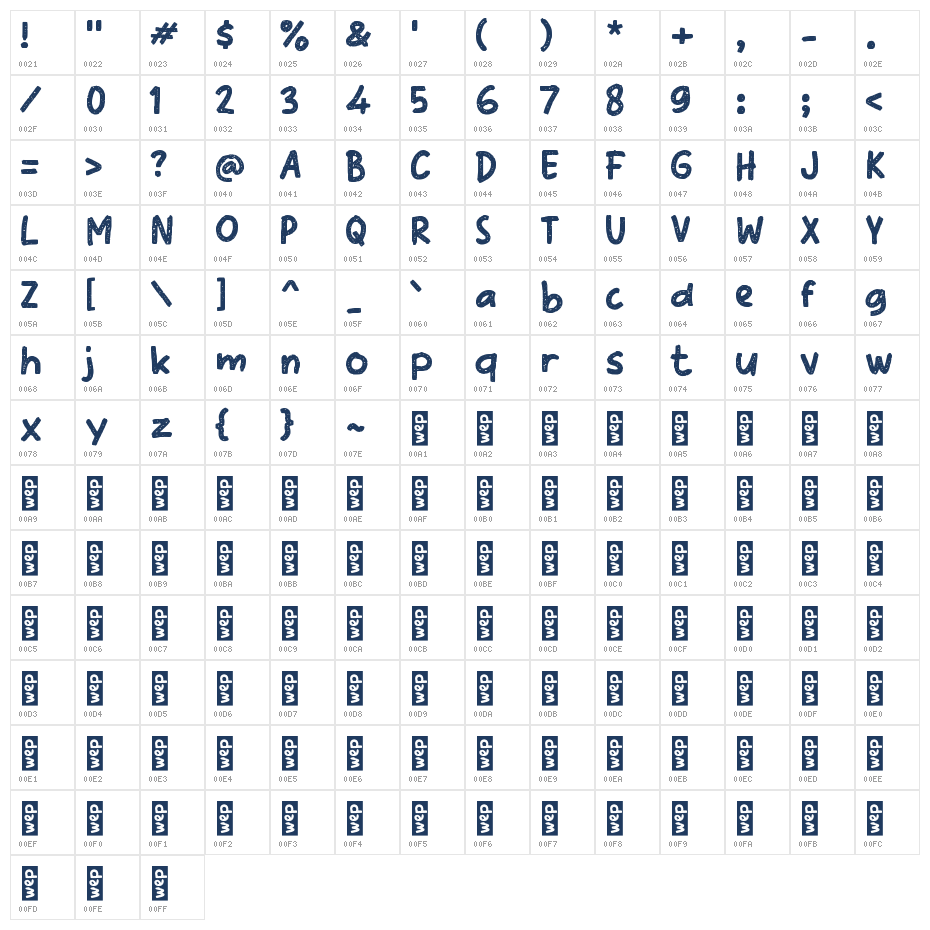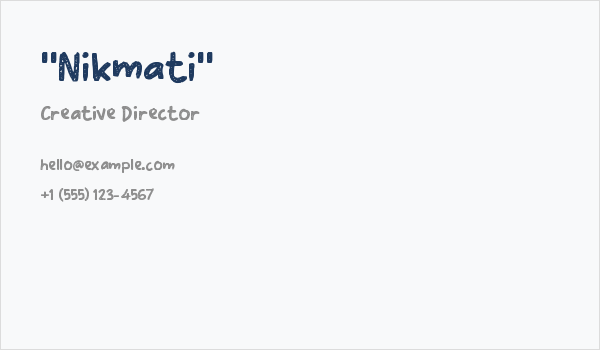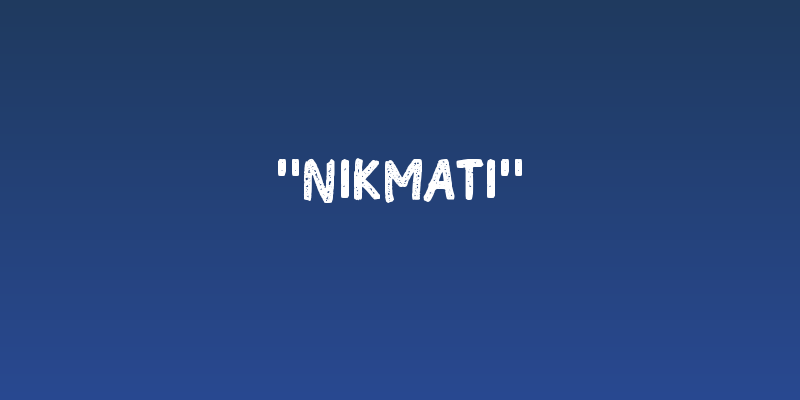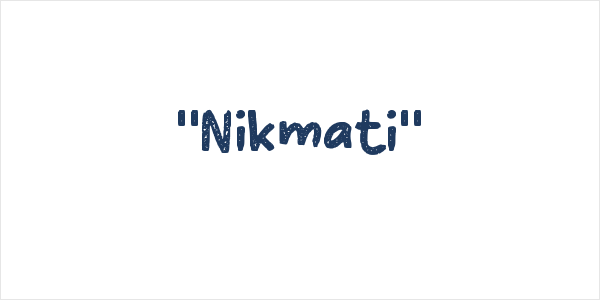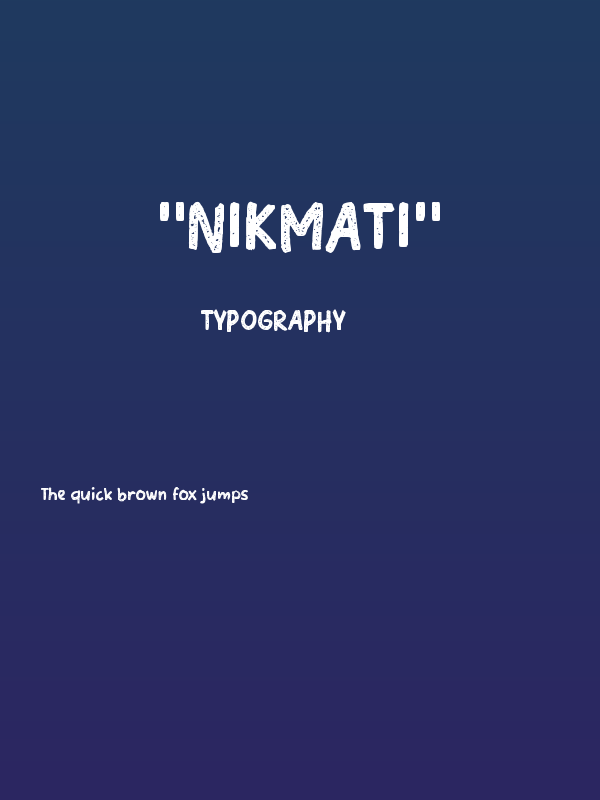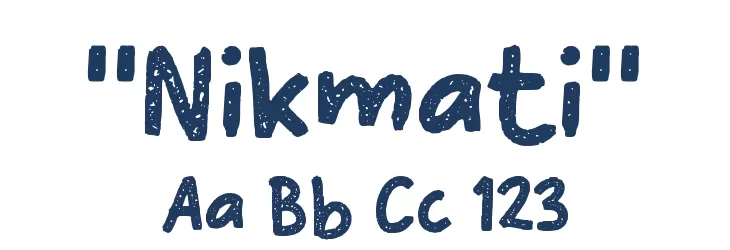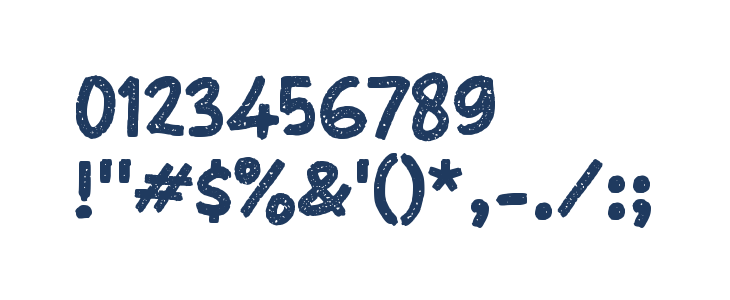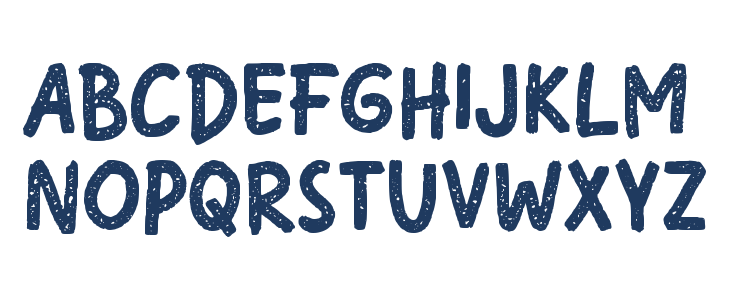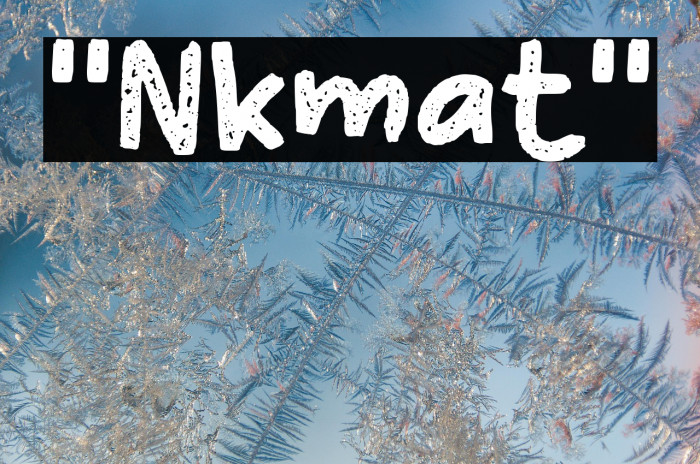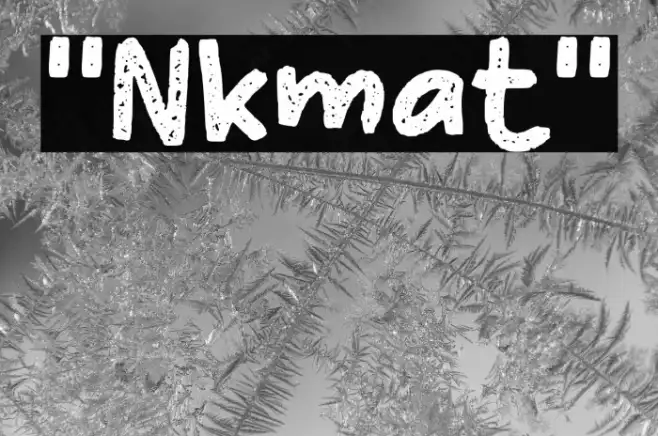
"Nikmati" Font
"Nikmati" Description
A playful, textured handwritten style font with a casual and friendly appearance, featuring irregular strokes and a slightly rough texture.
| Overall Style | Casual, Playful, Handcrafted |
| Use Case | Headlines, Body text, Logos, Invitations |